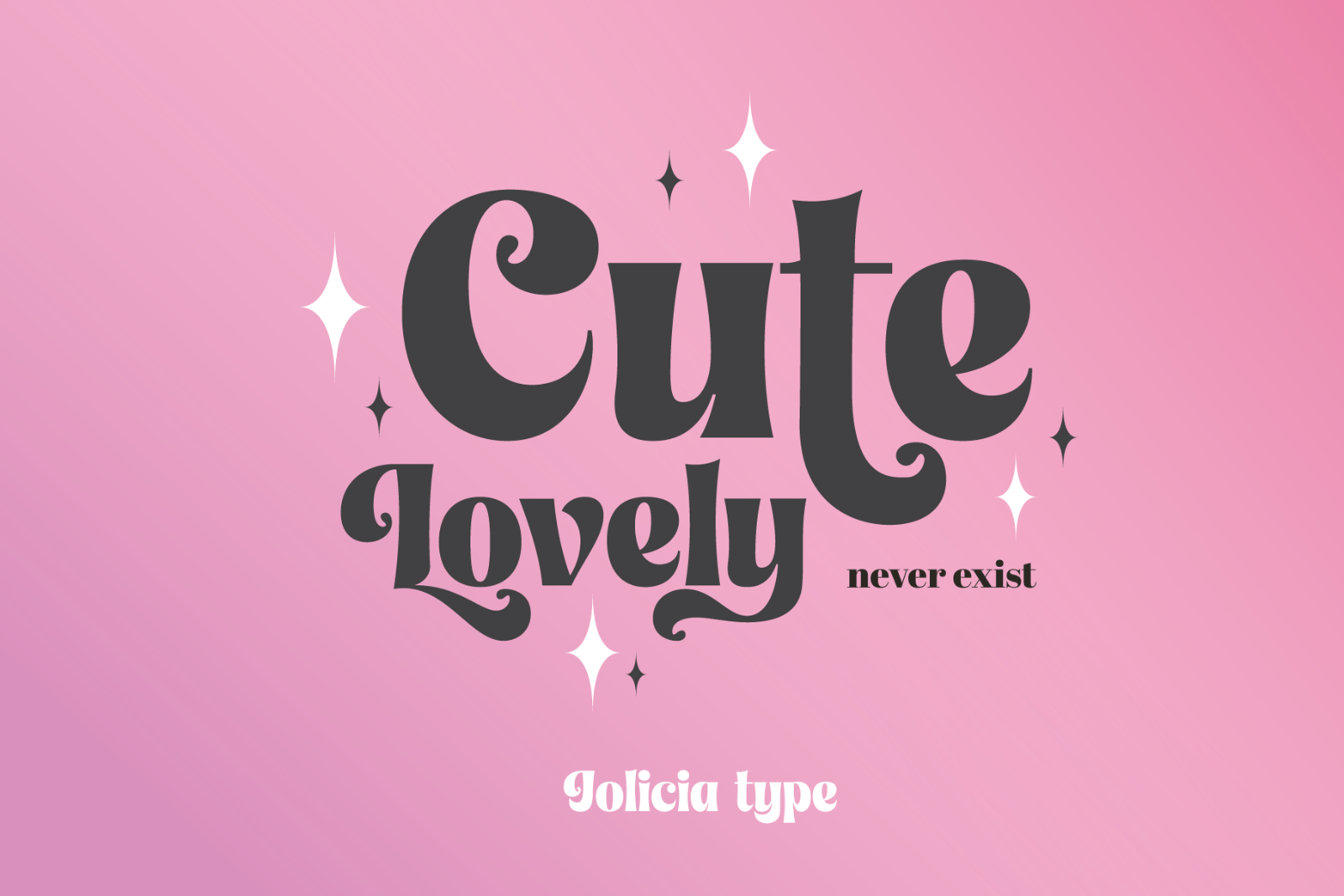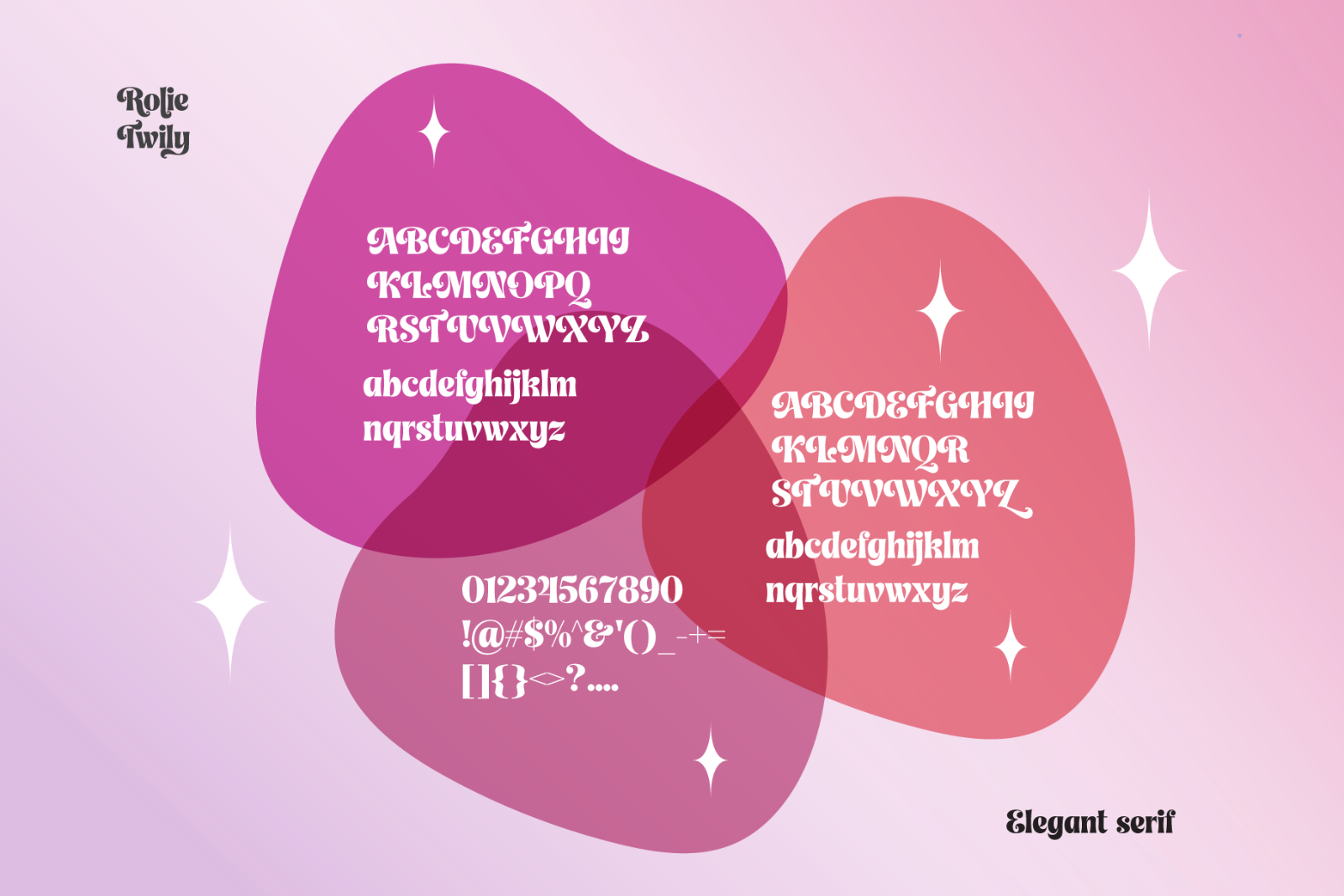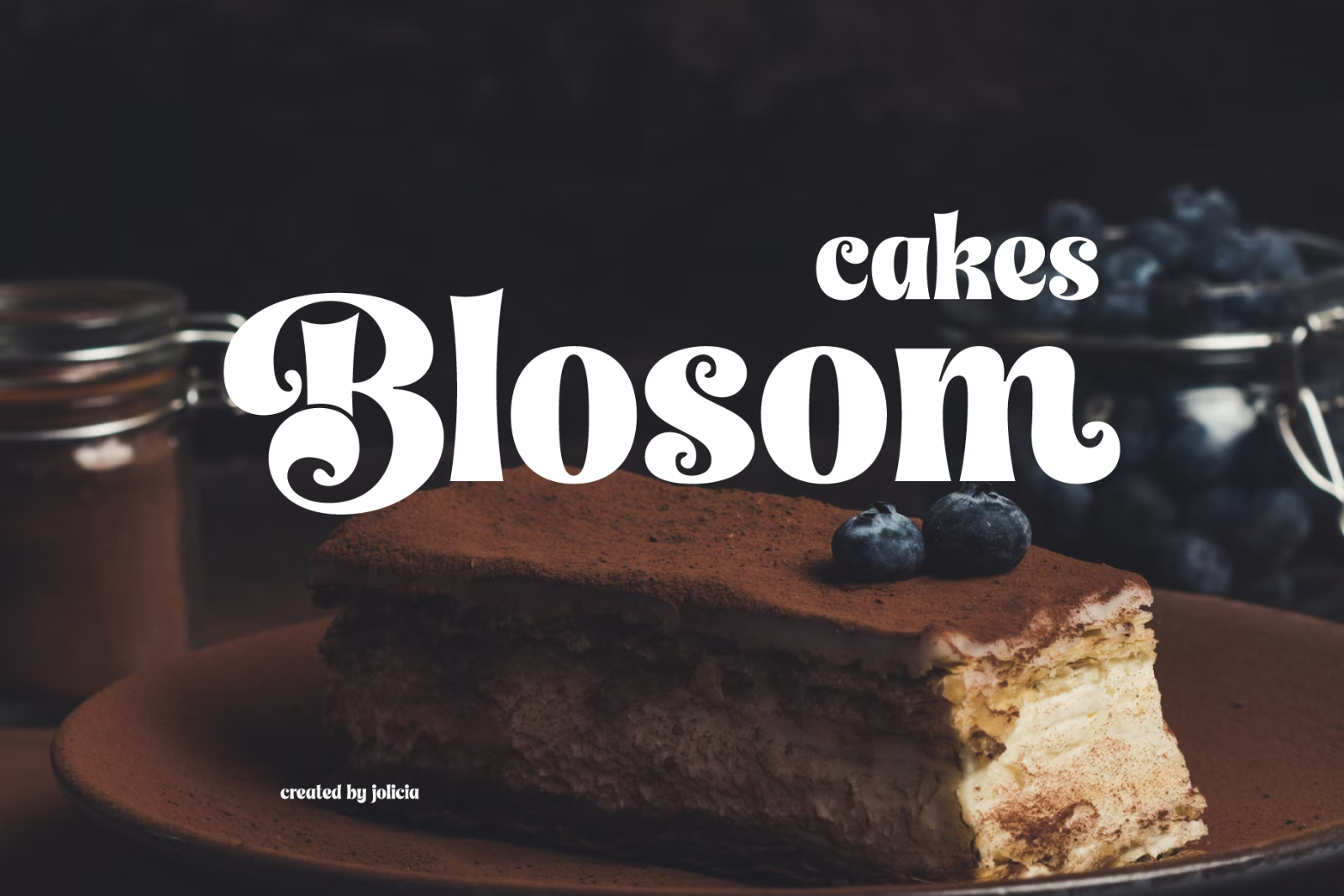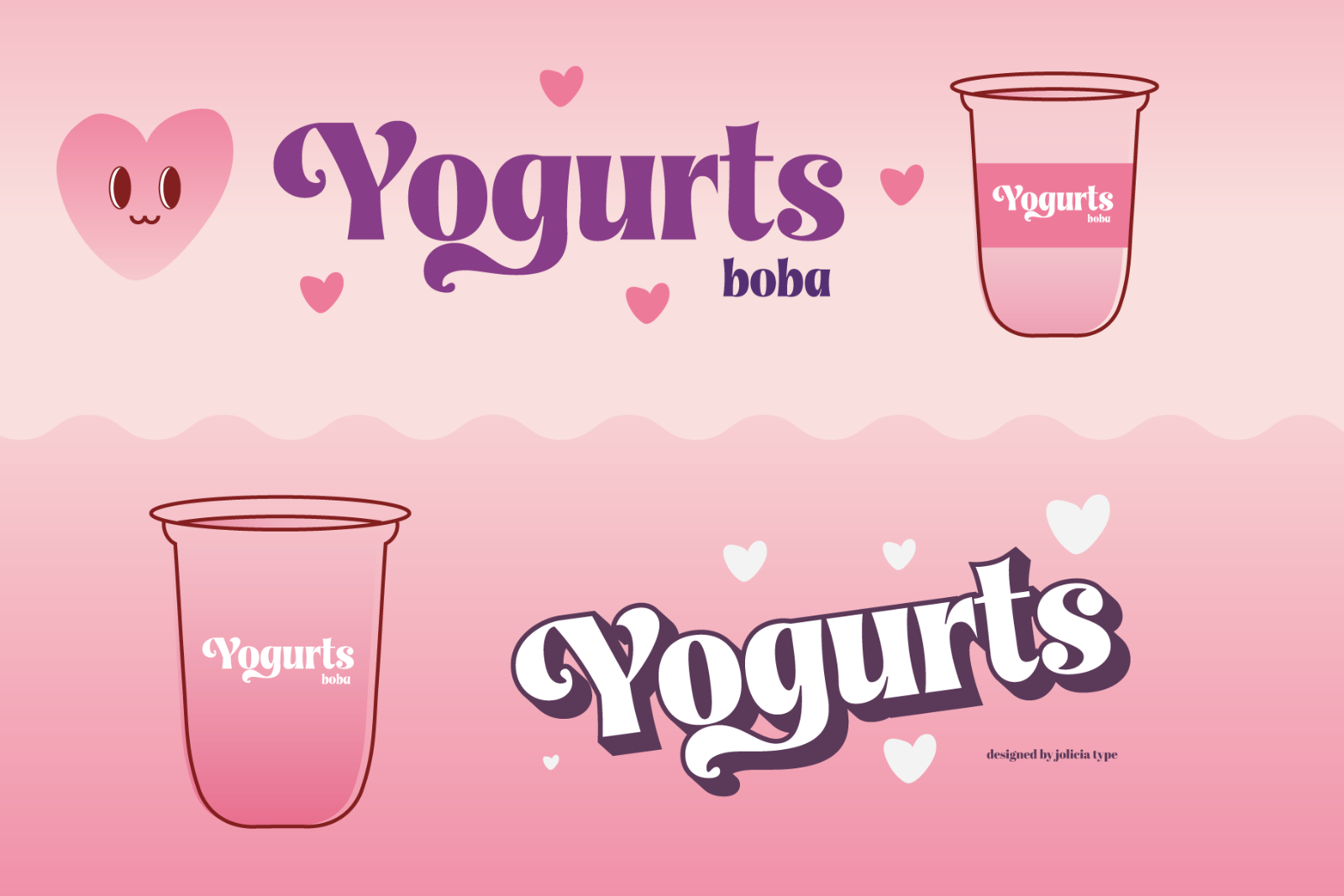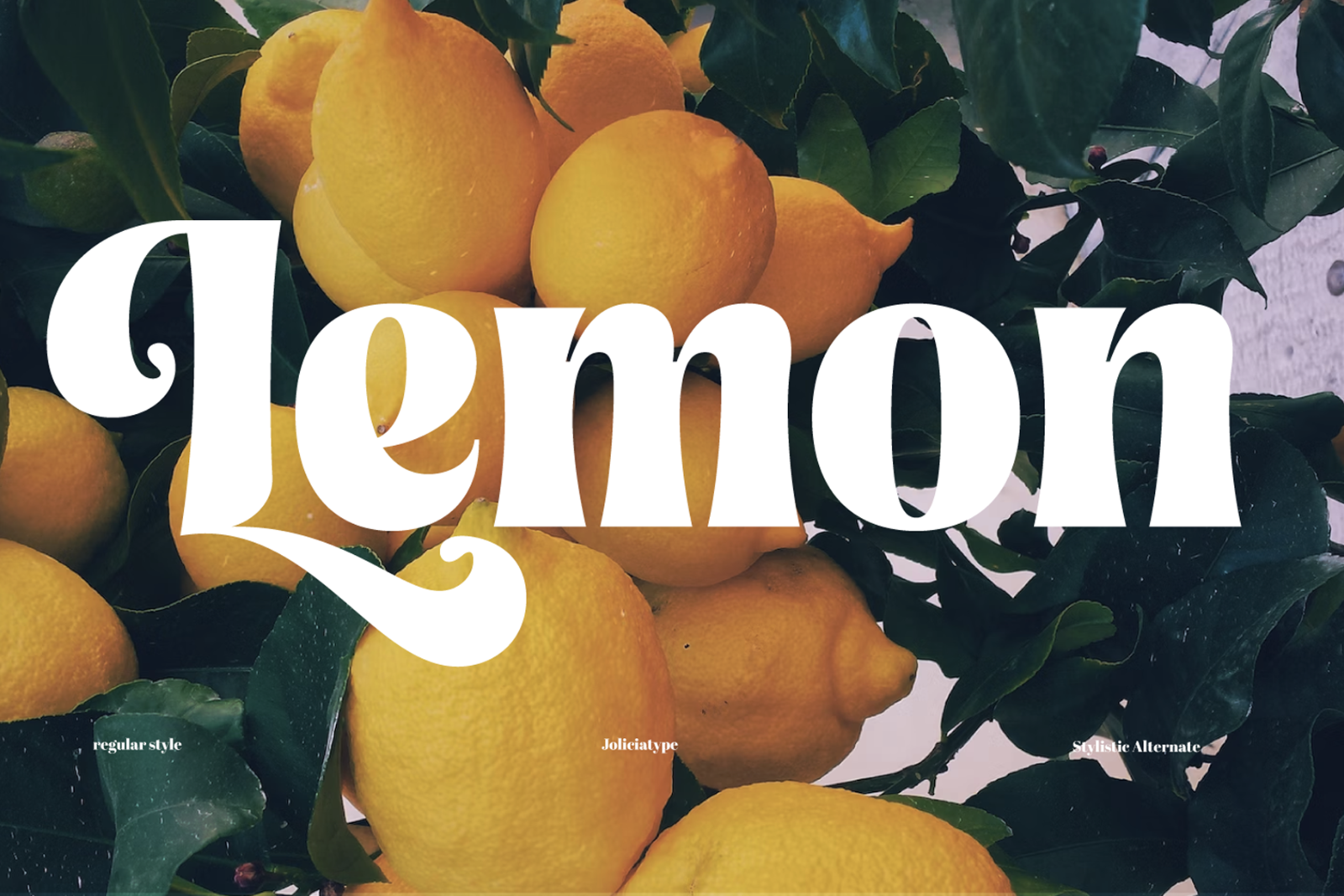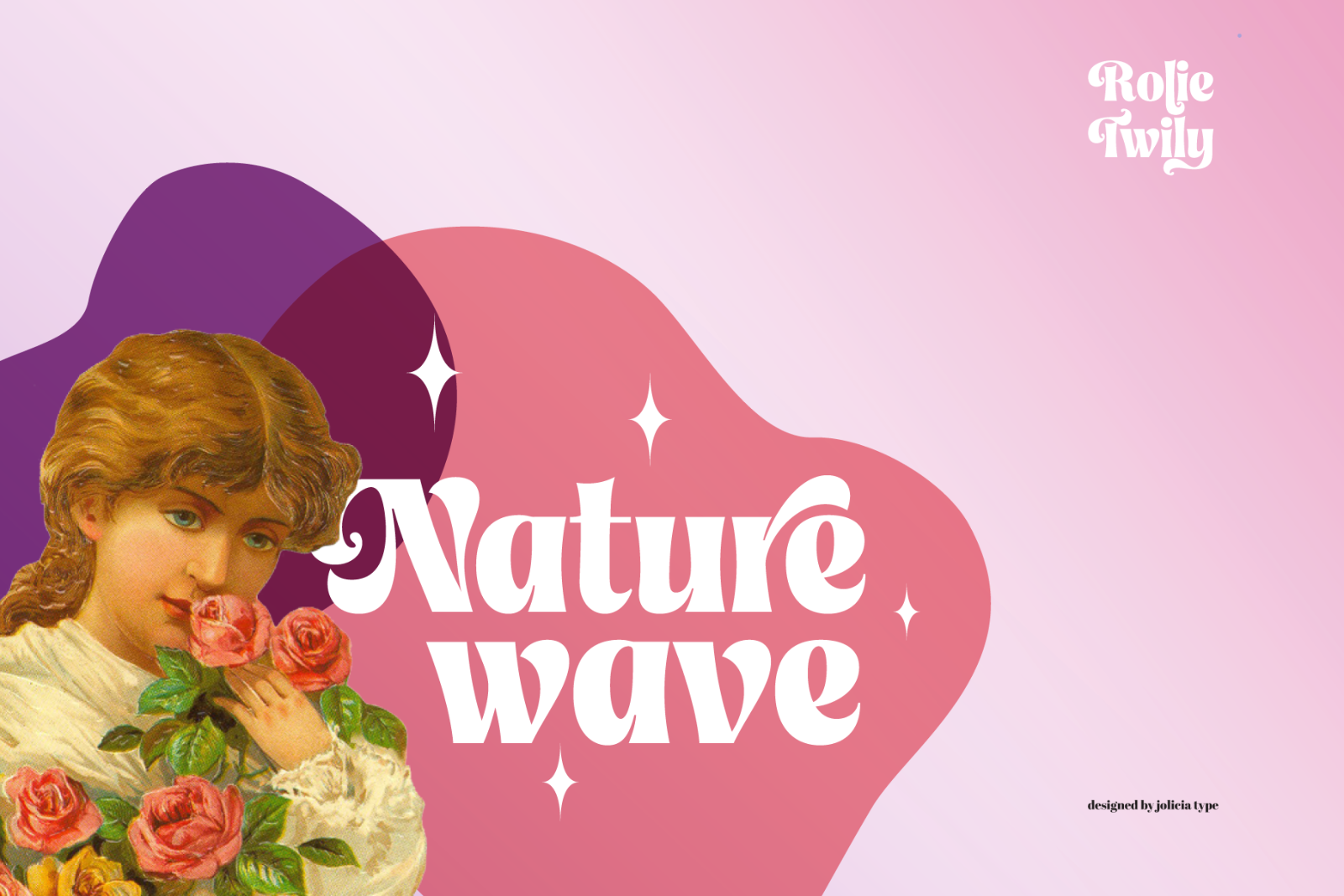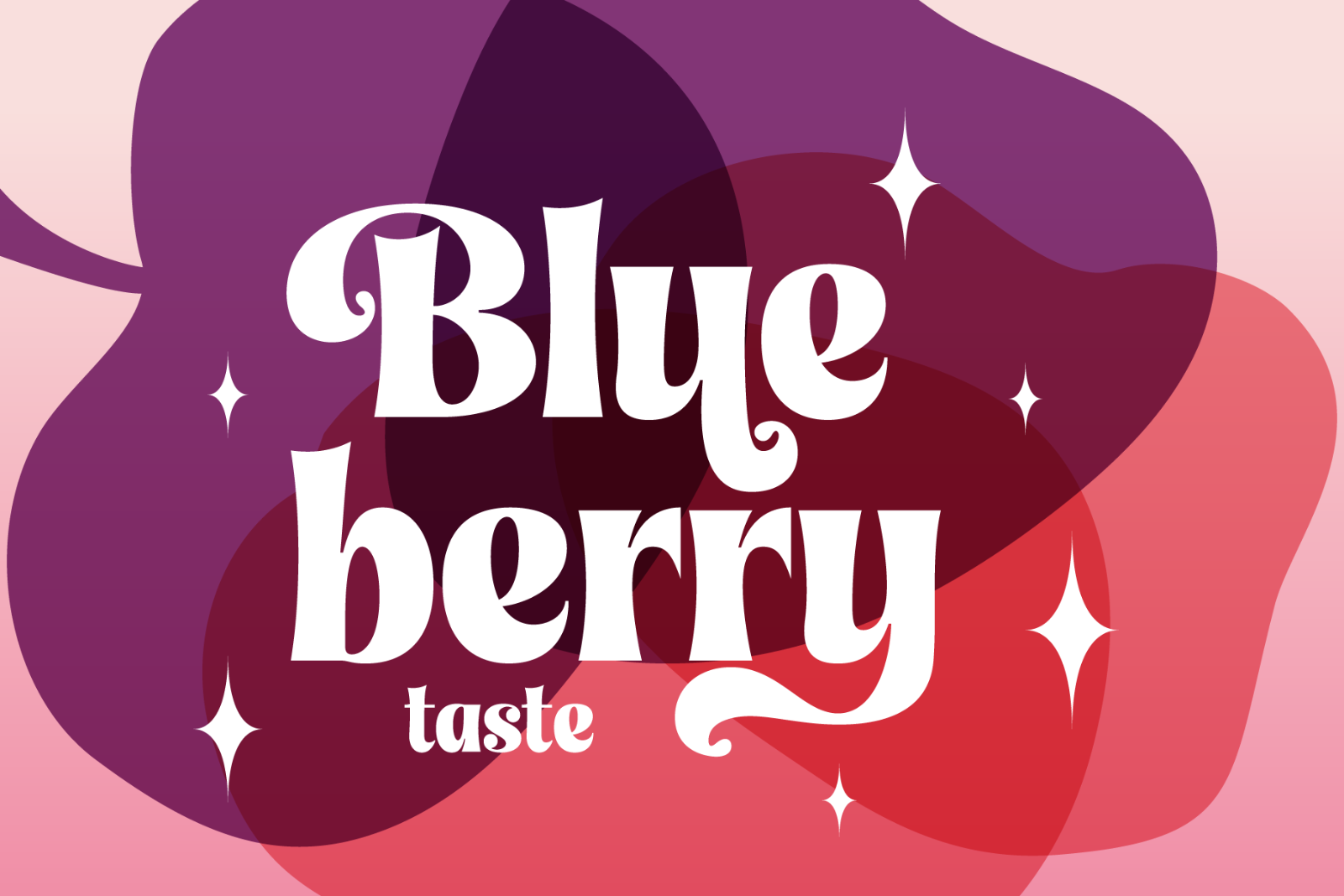
Introducing Rolie Twily, a font that effortlessly combines the elements of display and decorative styles to bring you a unique typographic experience. This font exudes an aura of Curly Elegant Modernity that is sure to make your designs stand out and leave a lasting impression.
Key Features:
• Display and Decorative Fusion: Rolie Twily seamlessly blends the characteristics of display and decorative fonts, resulting in a versatile typeface that can be used for a wide range of creative projects.
• Curly Elegance: The graceful and whimsical curls in Rolie Twily's letterforms add a touch of sophistication and elegance to your text, making it perfect for invitations, posters, and branding materials where a touch of luxury is desired.
• Modern Aesthetic: While rooted in tradition, Rolie Twily maintains a contemporary edge, making it ideal for modern design trends. Its clean design ensure that your message remains clear and stylish.
• Versatile Usage: Whether you're designing wedding invitations, packaging, social media graphics, or any creative project, Rolie Twily brings a sense of charm and refinement to your typography.
• Attention-Grabbing: The unique and eye-catching nature of Rolie Twily ensures that your content won't go unnoticed. It's a font that demands attention and leaves a lasting impression.
Rolie Twily is the perfect choice when you want to infuse your designs with a touch of Curly Elegant Modernity. Elevate your creative projects and make them truly memorable with this exceptional font. Download Rolie Twily today and watch your designs flourish with a newfound sense of style and sophistication.